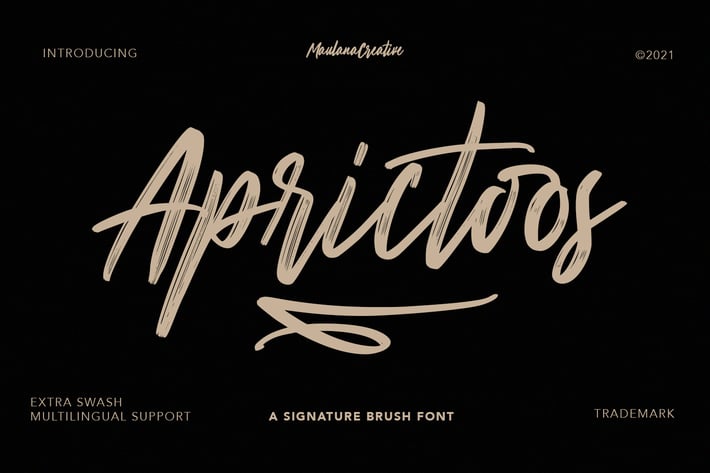
Aprictoos Signature Brush Font
Aprictoos is a signature brush font modern casual and smooth brush stroke font includes opentype features Ligatures. It support multilingual more than 100+ language. This font is suitable for logo design, Movie Titles , Books Titles and any awesome project you create. Make stunning work with Aprictoos font.